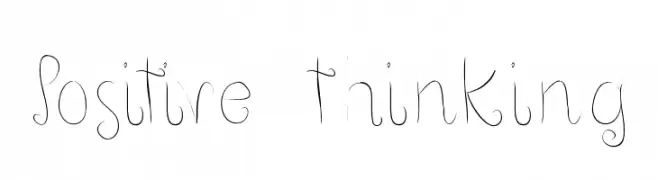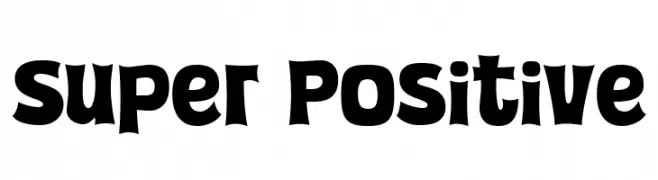
A playful, handwritten font with smooth, rounded strokes and a casual, energetic style.
An elegant, whimsical font with thin strokes and playful curves.
An elegant script font with flowing, graceful strokes and high contrast.
A bold, playful font with exaggerated curves and a whimsical style.
An ornate and decorative font with high contrast and intricate design.
A playful set of bold, circular symbols including stars, arrows, and smiley faces.
An artistic and decorative font with intricate, abstract designs resembling symbols or emblems.